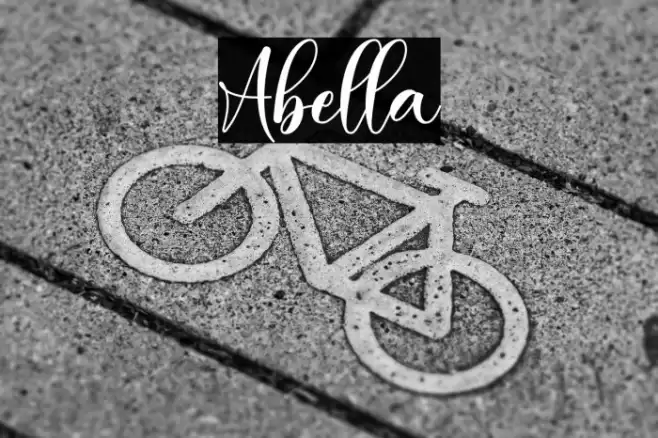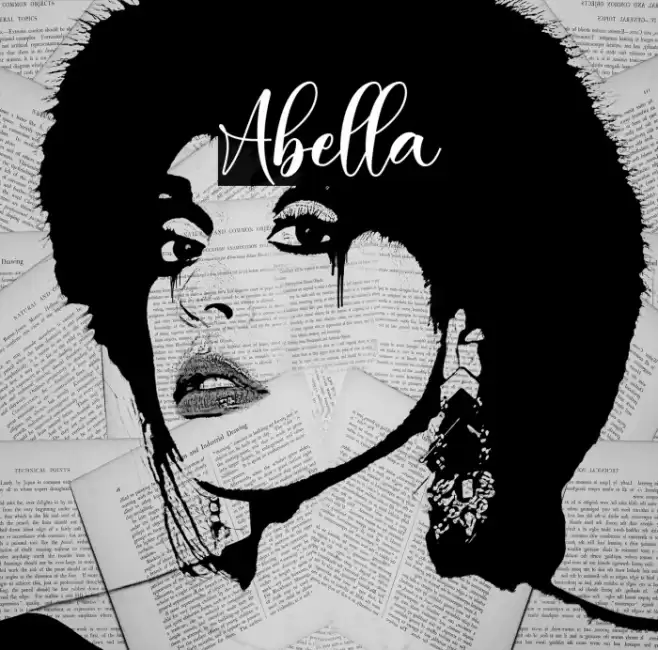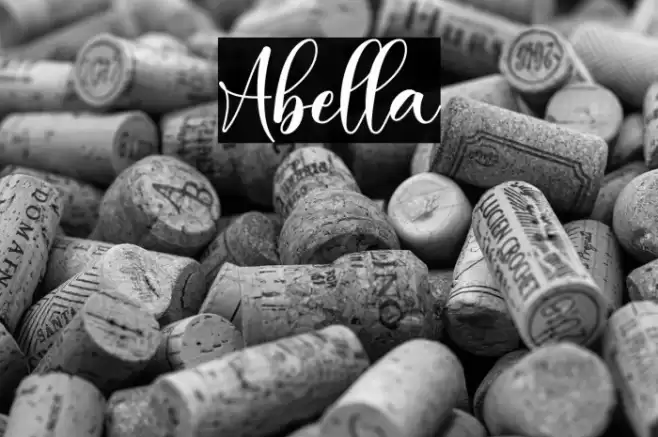
Abella Font
Abella Description
This elegant script font features a flowing, cursive style with intricate loops and swashes, giving it a sophisticated and artistic appearance. The uppercase letters are tall and graceful, with varying stroke widths that add a dynamic feel. The lowercase letters maintain a consistent flow, with some characters featuring unique flourishes that enhance the overall aesthetic. The numerals are styled to match the letters, maintaining the same elegant curves and varying thickness. Special characters are designed with the same attention to detail, ensuring a cohesive look across all glyphs.
An elegant script font with flowing, cursive letters and intricate swashes from Uncategorized fonts.
- Proposed Projects: Ideal for wedding invitations, elegant branding, greeting cards, and decorative signage.
- Overall Style: Elegant
- Use Case: Logos, Invitations, Decorative text